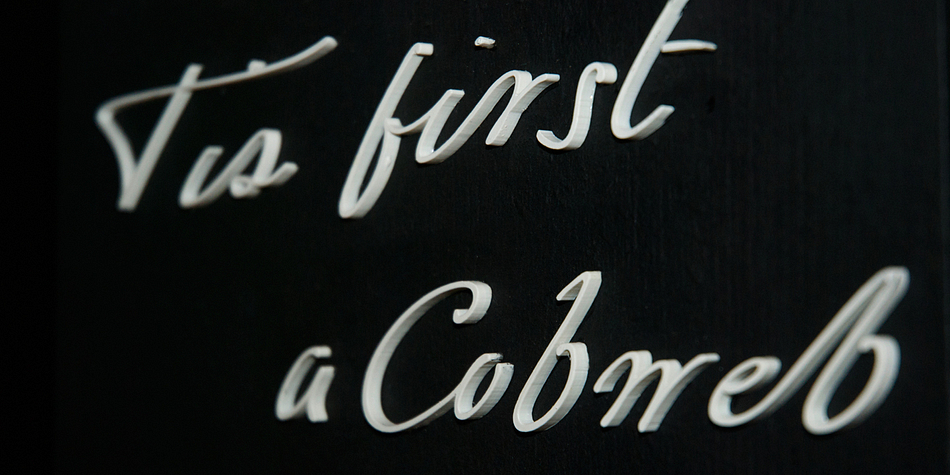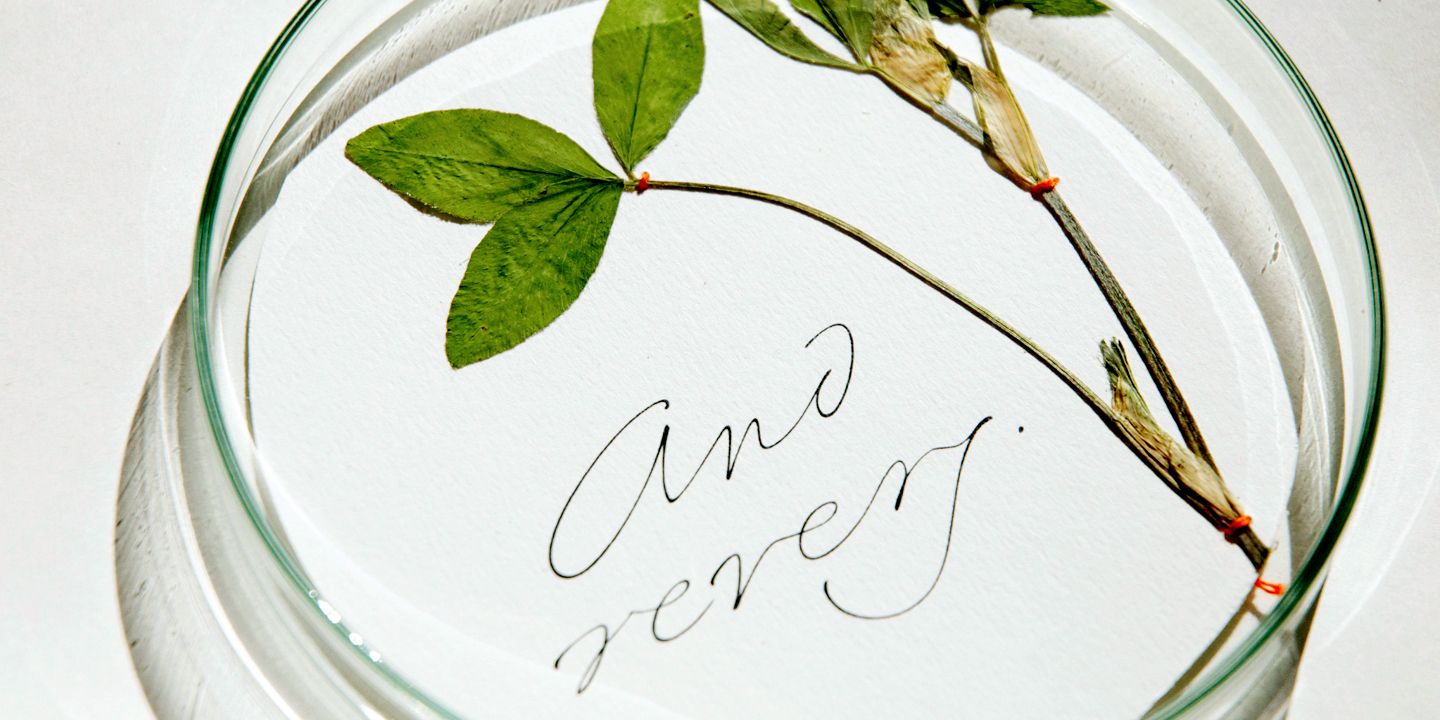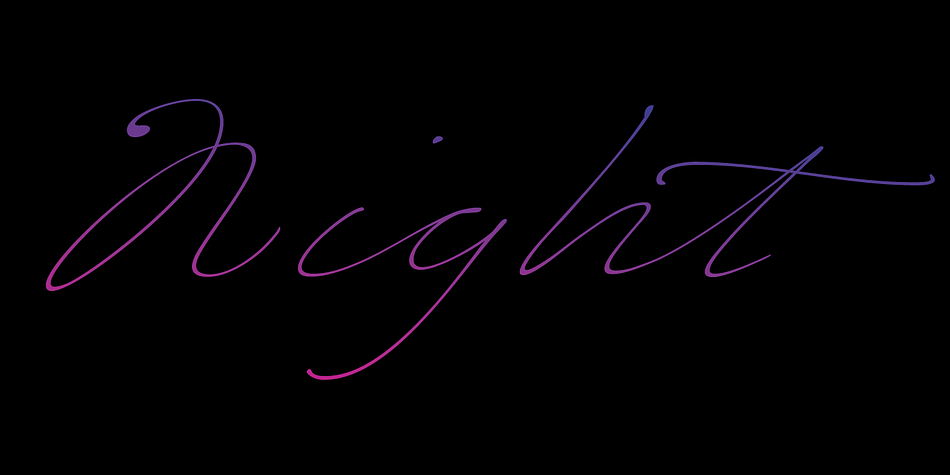
Emily In White
Emily In White is a dingbat and script font family. This typeface has six styles and was published by Juliasys.
She did not live to experience her breakthrough as a poet, but today she is considered one of the pioneers of literary modernity – the American lyricist Emily Dickinson (1830–1886).
She left behind a life’s work of manuscripts on scraps of paper, note pads and letters – and a last wish, that these were to be burned.
Emily’s younger sister Lavinia did not fulfill her wish – and thus preserved the ingenious manuscript-objects for posterity.
For Julia Sysmäläinen, designer of the award winning Kafka type family “FF Mister K”, Dickinson’s manuscripts were an inspiration and a source for creating her new typeface “Emily In White”.
Emily In White – named after Emily Dickinson’s preference for white clothes – captures the most filigree letterforms of the poet’s multifaceted writing style.
With hundreds of alternates and ligatures and a complex OpenType feature code it manages to revive the lively sequence of single and connected glyphs of a delicate handwriting which has been described as “breezing” and “reminding of bird tracks”.
Emily In White features three extra dingbat fonts.
Emily In White is a six font, dingbat and script family by Juliasys.
She did not live to experience her breakthrough as a poet, but today she is considered one of the pioneers of literary modernity – the American lyricist Emily Dickinson (1830–1886). She left behind a life’s work of manuscripts on scraps of paper, note pads and letters – and a last wish, that these were to be burned. Emily’s younger sister Lavinia did not fulfill her wish – and thus preserved the ingenious manuscript-objects for posterity.
For Julia Sysmäläinen, designer of the award winning Kafka type family “FF Mister K”, Dickinson’s manuscripts were an inspiration and a source for creating her new typeface “Emily In White”.
Emily In White – named after Emily Dickinson’s preference for white clothes – captures the most filigree letterforms of the poet’s multifaceted writing style. With hundreds of alternates and ligatures and a complex OpenType feature code it manages to revive the lively sequence of single and connected glyphs of a delicate handwriting which has been described as “breezing” and “reminding of bird tracks”.